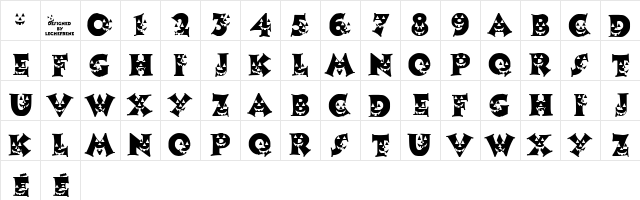
LCR Pumpkin Face Regular
Design Context for LCR Pumpkin Face Typeface
LCR Pumpkin Face is a composed and adaptable typeface that performs quietly and consistently across a wide range of design contexts.